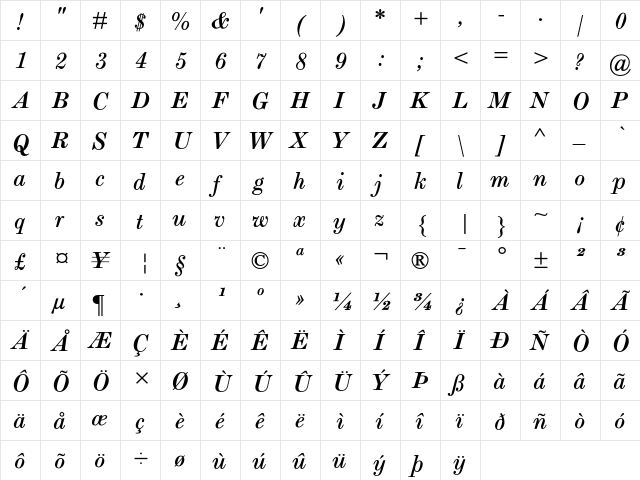
Miller-text Italic
Design Context for Miller-text Typeface
Miller-text takes a measured approach to typography — its balanced proportions and neutral character make it a reliable workhorse for both digital and print work. The dynamic lean of this cut emphasises speed and emphasis in any layout.